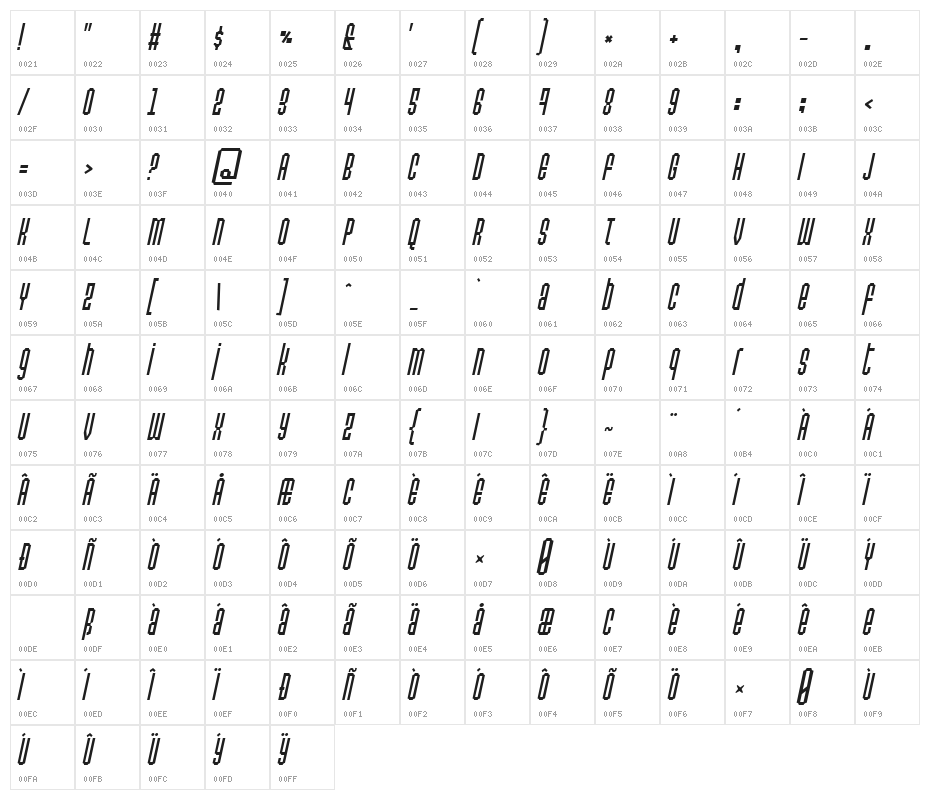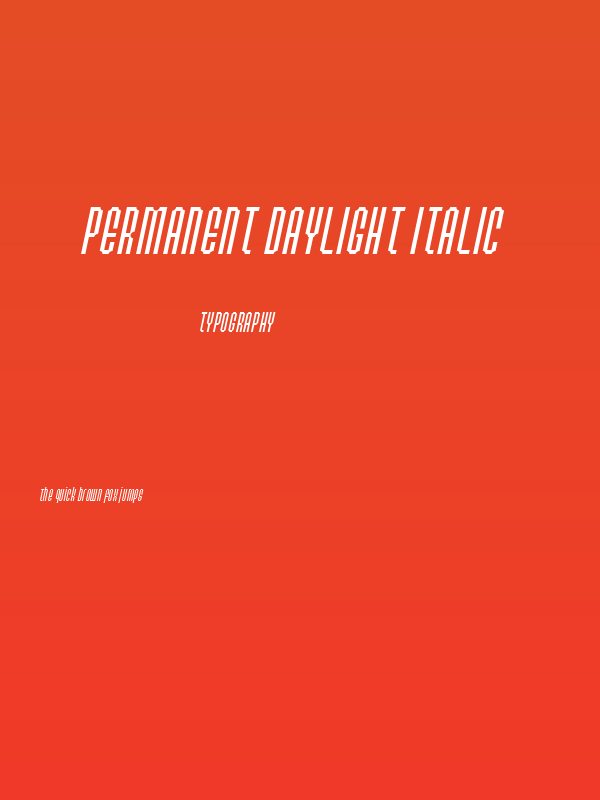
Permanent daylight Italic Font
Permanent daylight Italic Description
This font features a bold and dynamic italic style with a distinct slant, giving it a sense of motion and urgency. The characters are elongated and narrow, with sharp angles and clean lines that create a modern and edgy appearance. The uppercase and lowercase letters maintain a consistent style, while the numerals and special characters complement the overall design. The font's structure is geometric, with a slight retro-futuristic vibe, making it suitable for projects that require a strong visual impact.
| Proposed Projects | Ideal for sports branding, dynamic posters, futuristic designs, and edgy advertisements. |